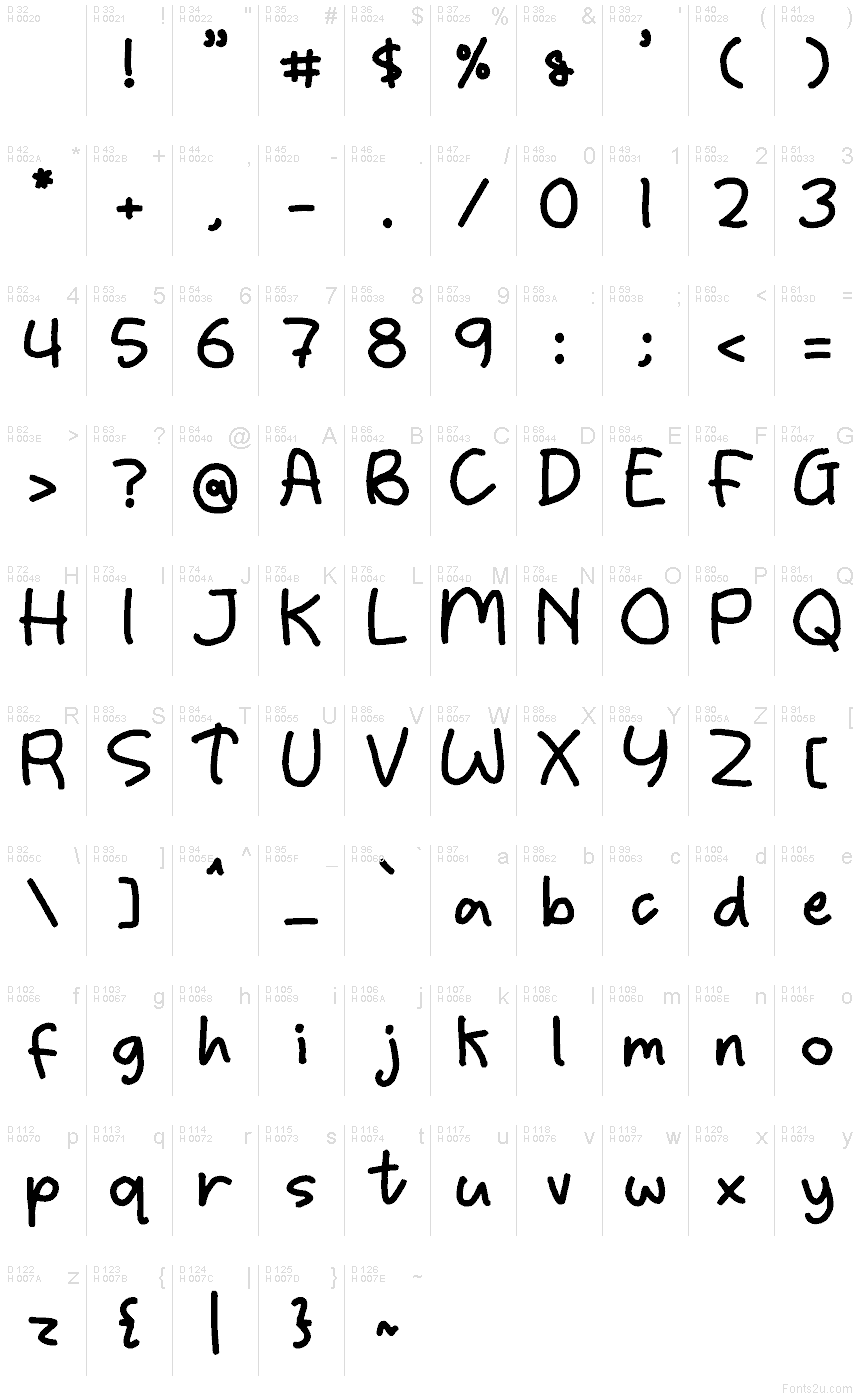
Rostenfly
Rostenfly font by Letterena Studios is a free handwritten font with casual and organic shapes. The simple character designs convey an approachable and inviting impression. It combines a modern and classic feel in one package altogether while introducing a stylish view each time the characters are presented.
With an unforgettable presence, Rostenfly can be used for posters, T-shirt print designs, advertisements, social media posts, YouTube previews etc. Its effect will also be pleasing when featured in branding presentations for identification cards or projects for packaging design.